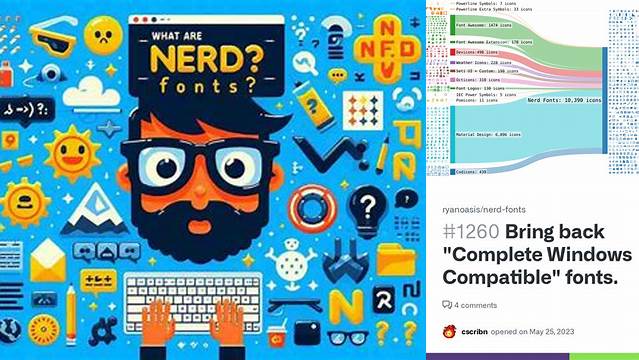
Nerd Fonts In Windows CMD: The Ultimate Guide
Hey guys! Ever felt like your Windows Command Prompt (CMD) looks a little… bland? You're staring at a sea of monospaced text, and let's be honest, it's not exactly the most inspiring sight. But what if I told you there's a way to inject some serious personality and functionality into your terminal? Enter Nerd Fonts: a game-changer for anyone who spends a significant amount of time in the command line.
What are Nerd Fonts?
First off, let's break down what Nerd Fonts actually are. In a nutshell, they're regular fonts that have been patched to include a massive number of extra glyphs, icons, and symbols. These aren't just your run-of-the-mill emojis, though those are included too! We're talking about icons from popular development tools, version control systems (like Git), programming languages, and a whole lot more. Think of it as giving your terminal superpowers, allowing it to display information in a much more visually rich and intuitive way. The key benefit here is enhanced readability and a boost in productivity. Instead of deciphering cryptic text outputs, you can quickly scan for icons that represent specific actions or statuses. For instance, a Git branch might be represented by a recognizable branch icon, or a file type by its corresponding logo. This visual cue drastically reduces cognitive load, making it easier to grasp information at a glance. Plus, let's be real, it just looks cool.
Nerd Fonts come in a variety of styles, from the classic monospaced fonts favored by developers to more stylized options. They're also available in different weights and variations, so you can find the perfect fit for your personal taste and screen resolution. The best part? They're completely free and open-source, maintained by a passionate community of developers and designers. This means you're not just getting a font; you're joining a movement to make terminals more user-friendly and visually appealing.
Why Use Nerd Fonts in Windows CMD?
Now, you might be thinking, "Okay, these Nerd Fonts sound interesting, but why should I bother installing them in my Windows CMD?" That's a fair question! The default CMD interface is, well, let's just say it's not known for its cutting-edge aesthetics. It's functional, sure, but it lacks the visual flair and customizability that modern developers crave. This is where Nerd Fonts come in to save the day. They breathe new life into the CMD, transforming it from a basic text interface into a vibrant and informative workspace. Imagine being able to instantly see the status of your Git repository, the type of file you're working on, or the success or failure of a build process, all through simple, intuitive icons. This is the power of Nerd Fonts.
Beyond the visual appeal, Nerd Fonts also enhance functionality. Many command-line tools and utilities, especially those popular in the *nix world, are designed to take advantage of these extra glyphs. Tools like PowerShell, Windows Terminal, Oh My Posh, and WSL (Windows Subsystem for Linux) can leverage Nerd Fonts to display information more effectively. By installing Nerd Fonts, you unlock the full potential of these tools, making your command-line experience smoother and more efficient. Think of it as upgrading your toolkit – you're not just making things look prettier; you're adding new capabilities to your arsenal. You will be able to use Powerline fonts, which are often included within Nerd Fonts packages. These are especially useful for creating visually appealing and informative prompts in your terminal, showing things like your current directory, Git branch, and other relevant information. This level of customization allows you to tailor your terminal to your specific workflow, making it a truly personalized environment.
Troubleshooting Nerd Fonts in CMD
Even with the best instructions, things can sometimes go awry. If you've followed the steps above and your Nerd Fonts aren't displaying correctly in CMD, don't panic! There are a few common culprits, and we'll walk through the troubleshooting steps together. Let's get your CMD looking sharp! The most frequent issue is that the font isn't being applied correctly. Double-check that you've selected your Nerd Font in the CMD Properties window, as we discussed in the previous section. It's easy to accidentally select the wrong font or to forget to apply the changes. Go back to the "Font" tab in the Properties window and make sure your Nerd Font is selected in the font list. If it is, try selecting a different font and then re-selecting your Nerd Font. This can sometimes force CMD to refresh its font cache and apply the changes correctly. Another potential problem is font caching issues. Windows sometimes caches font information, and this can occasionally interfere with the correct display of fonts, especially after installing new ones. A simple fix for this is to clear the font cache. This can be a bit technical, but don't worry, I'll guide you through it. First, close any applications that are using the font you're trying to troubleshoot, including CMD. Then, open the Services application by searching for "Services" in the Start Menu and pressing Enter. In the Services window, find the "Windows Presentation Foundation Font Cache 3.0.0.0" service (or a similar name) and right-click on it. Select "Restart" to restart the font cache service. This will clear the cached font information and force Windows to reload the fonts. After restarting the service, try opening CMD again and see if your Nerd Font is displaying correctly.
Remember, the command line doesn't have to be a drab and intimidating place. With a little creativity and the help of tools like Nerd Fonts, you can create a terminal environment that's both functional and aesthetically pleasing. So go ahead, experiment with different fonts, color schemes, and customizations. Make your terminal your own. You will be surprised at the difference it makes. By using Nerd Fonts in your Windows CMD, you're not just changing the way your terminal looks; you're changing the way you interact with your computer. You're creating a more intuitive, efficient, and enjoyable experience. So, embrace the power of Nerd Fonts and take your command-line skills to the next level!